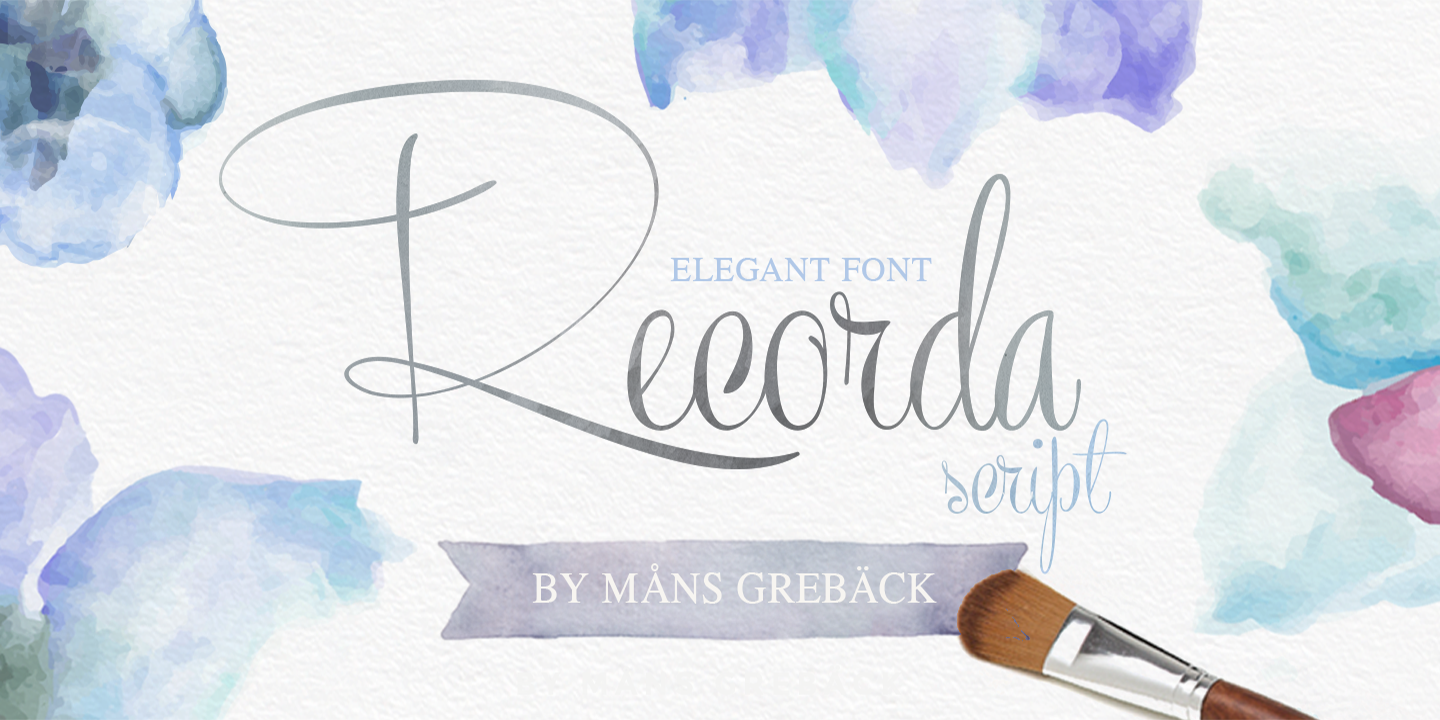
Recorda Script Font is a charming and authentic handwritten typeface that embodies the casual elegance and personal touch of genuine brush lettering. This delightful font is perfectly suited for projects that aim for a warm, inviting, or creatively artisanal aesthetic. Imagine Recorda Script Font gracing personalized wedding stationery, adding a cozy touch to cafe branding, or enhancing the visual appeal of handcrafted product labels. It's also ideal for crafting unique social media graphics, designing enchanting book covers for memoirs or lifestyle guides, or lending an authentic, artistic feel to blogs about art, travel, and personal stories. Its natural flow and expressive strokes make it superb for designs seeking warmth, personality, and a connection to genuine human artistry.
What makes Recorda Script Font so exciting is its ability to capture the spontaneity and character of real brush strokes, setting it apart from overly digitized scripts. It possesses an inherent charm that feels approachable and sincere, as if each word has been lovingly penned by hand, bringing a sense of warmth and bespoke craftsmanship to your text. This font isn't just about conveying words; it's about conveying a feeling—a friendly note, a heartfelt message, or the joy of creative expression. Its organic curves and unique details create a rich visual experience that instantly adds depth and personality to your design, making it truly captivating for projects that value authenticity and a personal touch.
Recorda Script Font typically focuses on its distinctive script qualities, often available in a standard regular weight, possibly with a few stylistic alternatives that enhance its natural, flowing feel. While it may not feature an extensive range of weights like a traditional text font, its strength lies in the singular charm and consistent design of its primary form. Its nuanced strokes and fluid connections ensure that its unique appearance is maintained across various applications, making it highly effective for impactful headings, artistic accents, and designs where a handcrafted yet refined visual impact is desired.